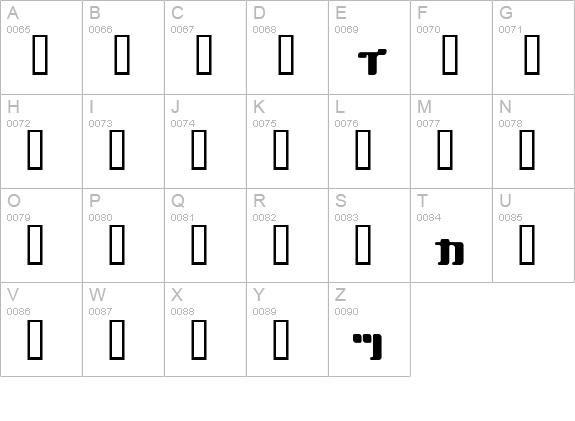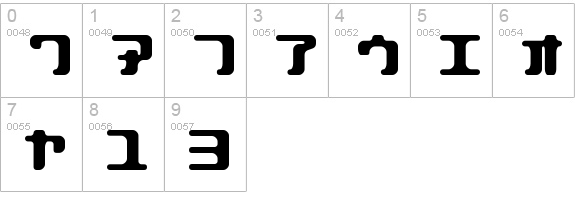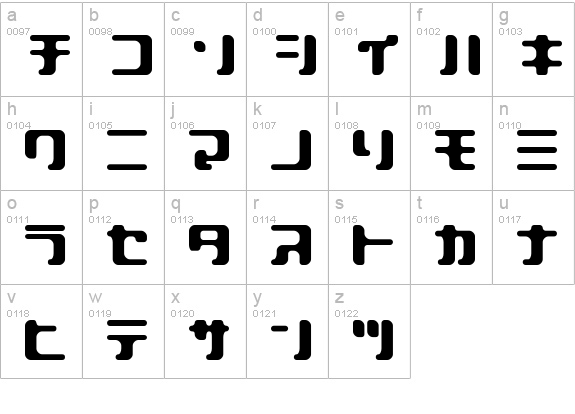
EOPlaï¿¿a kaï¿¿akana Font Details
EOPlaï¿¿a kaï¿¿akana font is a beautifully crafted typeface that exudes elegance and sophistication. Its intricate design and unique character make it perfect for a wide range of creative projects, from branding to editorial design. The font features a blend of modern and traditional elements, creating a harmonious balance that adds a touch of artistry to any layout. What sets EOPlaï¿¿a kaï¿¿akana font apart is not only its stunning aesthetics, but also its versatility. Whether you're designing a logo, poster, website, or any other visual content, this font will elevate your work to new heights. Best of all, EOPlaï¿¿a kaï¿¿akana font is completely free to download at FontsMarket.com. So go ahead and enhance your designs with this exquisite typeface today!